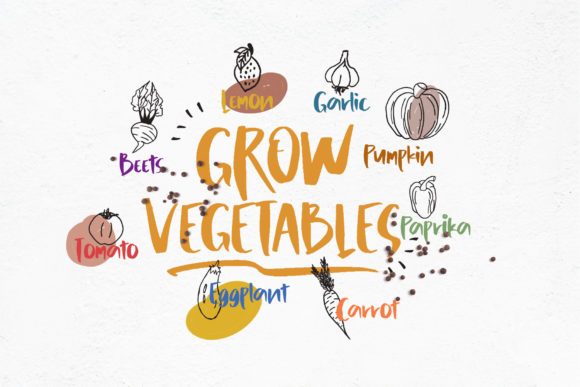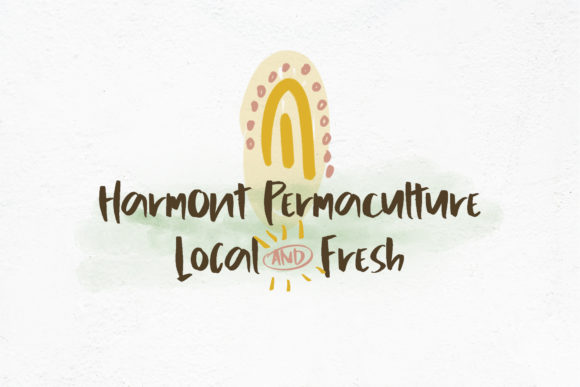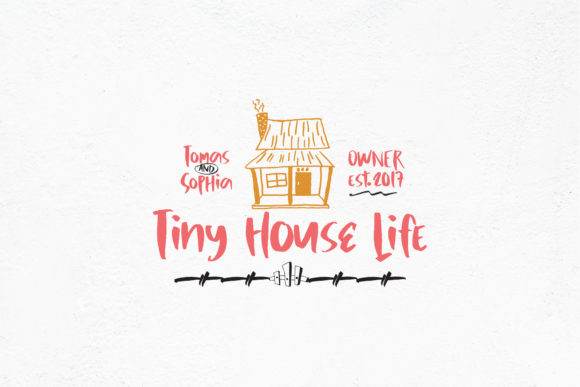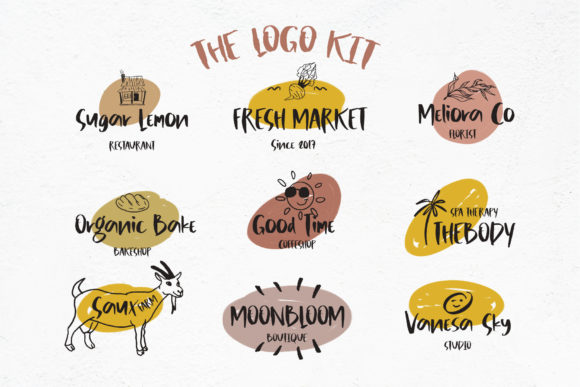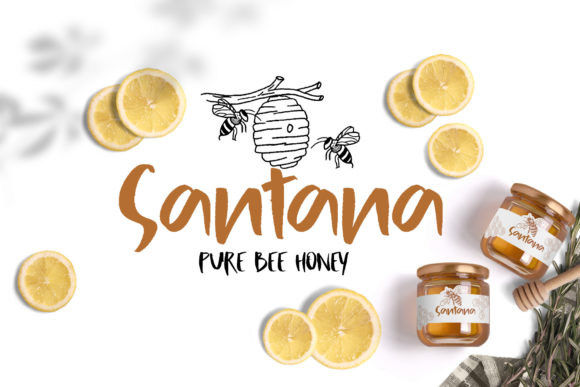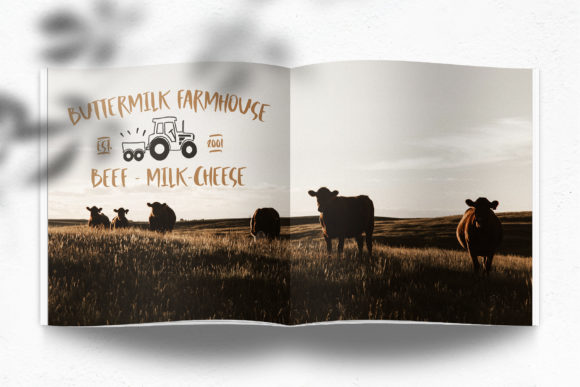
Introduction to Silta the Farming Font
Silta the Farming is a cool and casual script font that exudes elegance and class.
This font was particularly crafted for those who need a beautiful and refreshing look to their designs Silta The Farming is PUA encoded which means you can access all glyphs and swashes with ease.